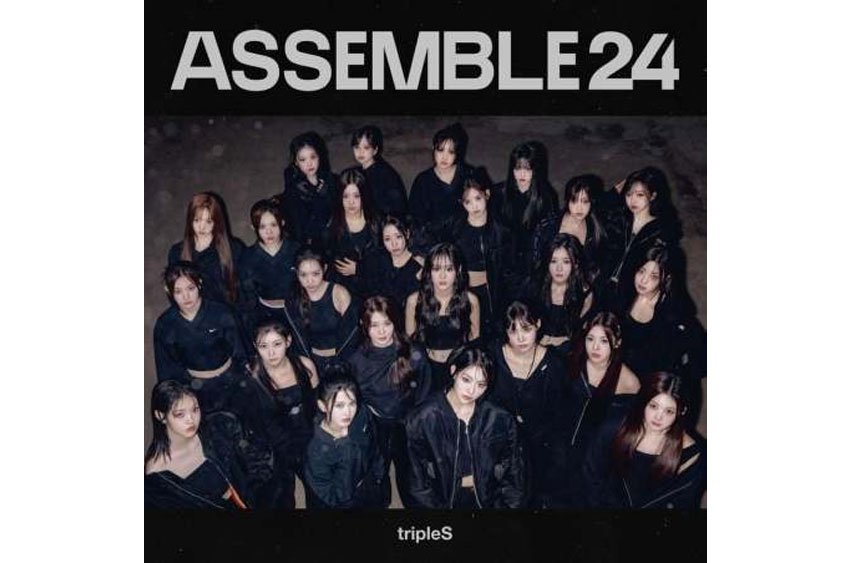
Assemble24 (Album) Font title on the cover art is set in the Artega typeface, with tight letter spacing and alterations made to the “E” and the number “4”.